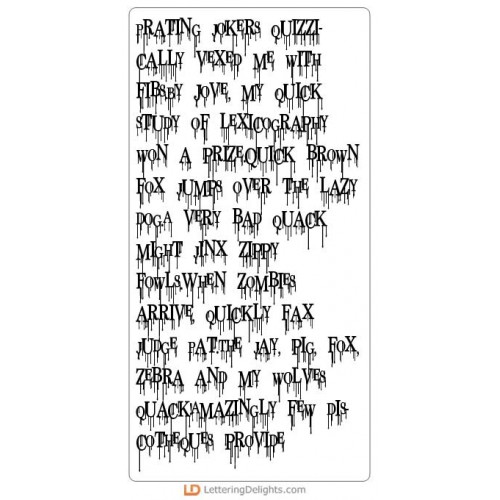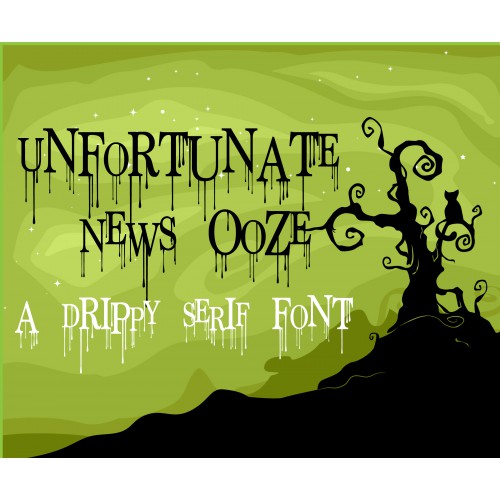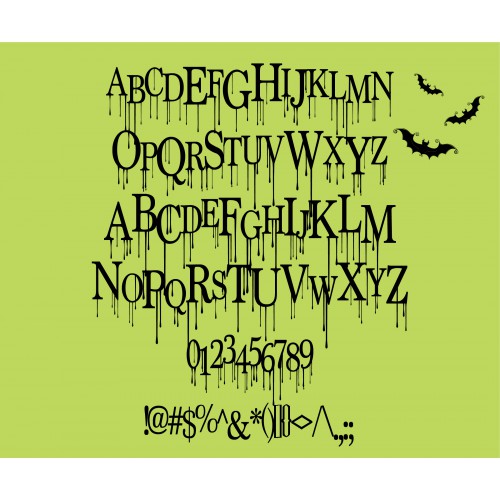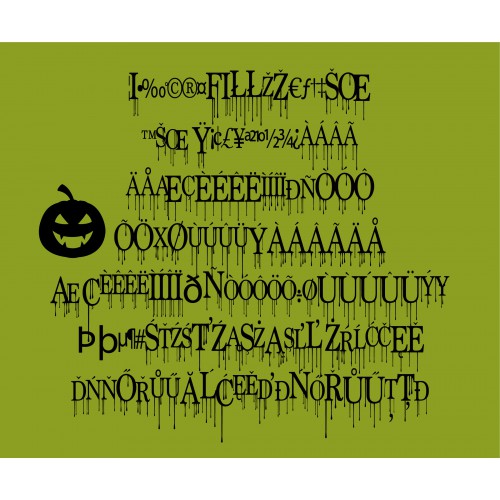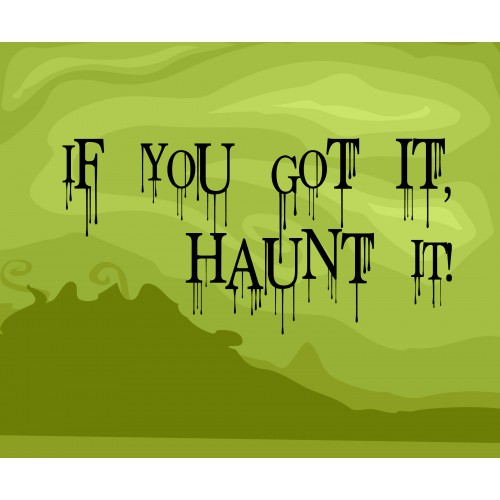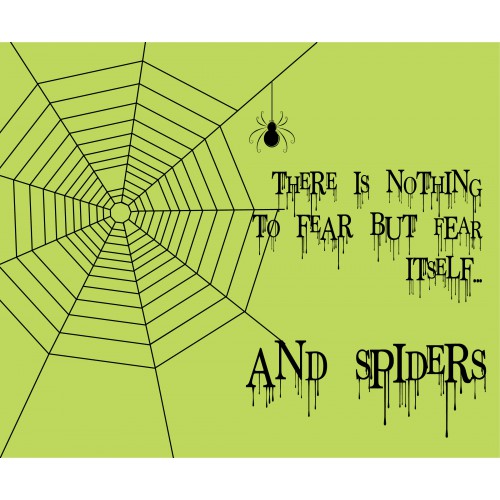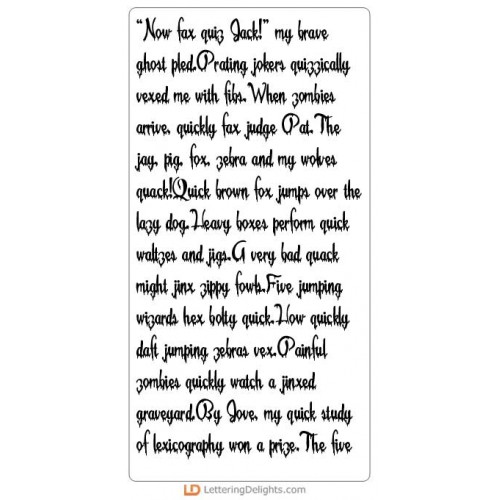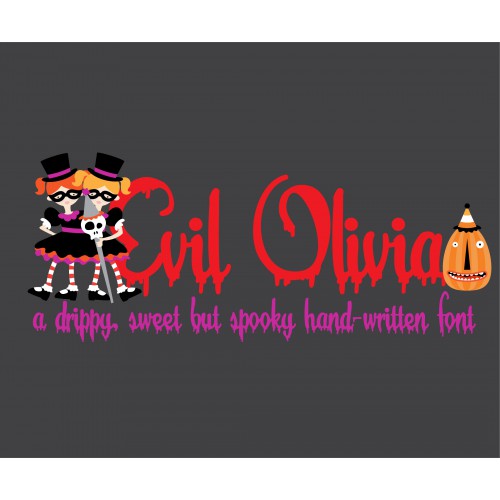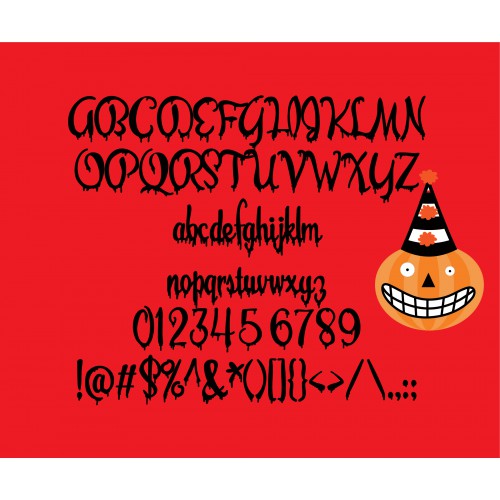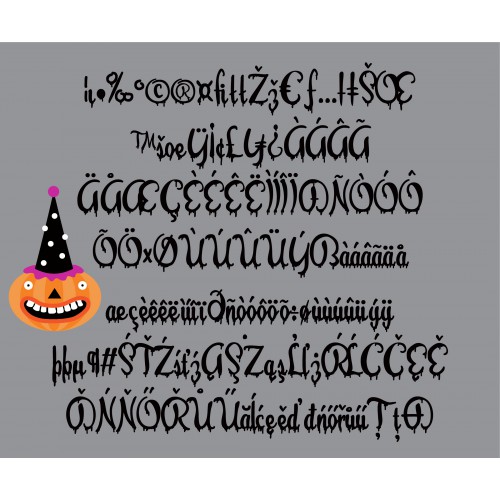
Creep It Real - Font Bundle
This big font bundle has ten new and creative Halloween fonts!
PN Unfortunate News Ooze - FN
This serif font has extremely long, creepy drips...
ZP Evil Olivia - FN
This pretty and formal script font is dripping blood and ooze...
PN Nether Lights - FN
This drippy, hand-painted font features holiday lights above it reminding us of a fun and scary popu..
ZP Necrophobia - FN
This serif font has a bit of texture and extra long and creepy descenders...
PN Spine Chilling - FN
This black letter font has a bit of texture and a bit of creepy feeling to it...
ZP Bane Existence - FN
This art deco inspired font has a 1920's feel but is remotely scary. It features a frightening spide..
PN Arachno Horror - FN
This spooky font is perfect for Halloween and any spooktacular writings...
PN Abomination - FN
This serif font has texture and an occasional zig/zaggy scary leg...
ZP Halloween Bean - FN
This hand-illustrated font has cute Halloween themed lettering and illustrations...
PN Goose Pimples - FN
This bold serif font is drippy and oozy...